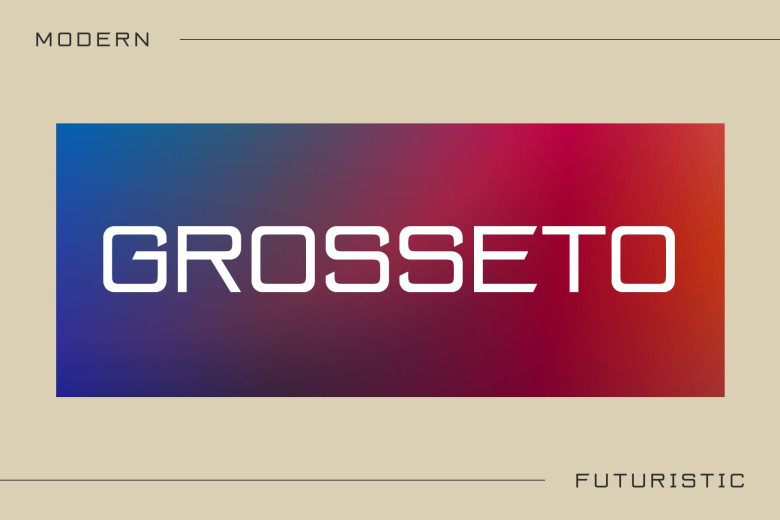
Grosseto Font
Grosseto can be defined as a modern and futuristic design without serif font, which makes an eye-catching display font suitable for headings, logos and magazine covers, branding packaging and invitations. Grosseto’s clean lines and soft curves add an air of elegance to every project it graces.
Grosseto Sans Serif Font